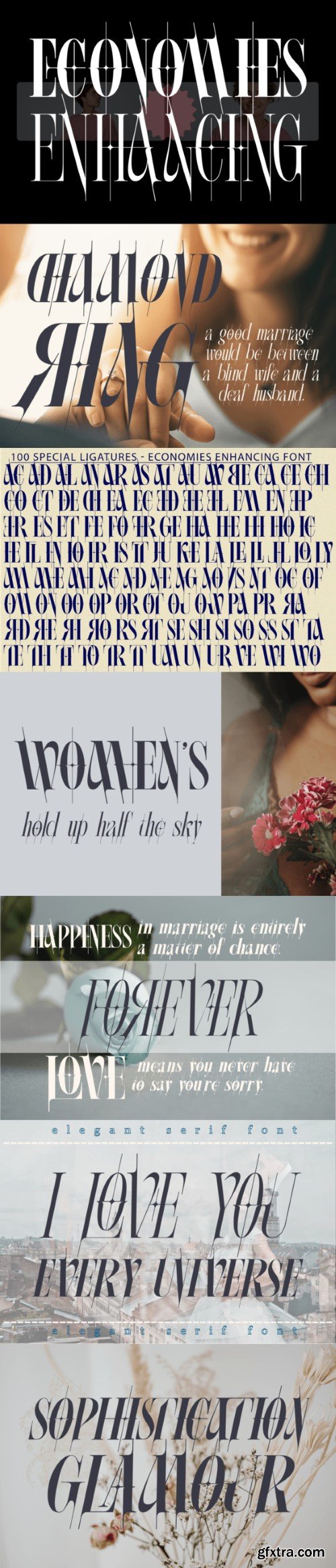
经济体提升字体
ECONOMIES ENHANCING FONT is a new condense font that is elegant and has a luxury look. The ligatures makes this typeface unique and stands out rather than the regular serif font. It’s a beautiful and inspiring set of modern typography glyphs based on a minimal and simplistic approach to elegance. The inspiration came from the fashion magazines. Its thick-thin, serif strokes express the modernity of the fashion industry. This unique font is perfect for creating beautiful logotypes, stunning magazine designs and more. This font can be your solution in completing projects that are equipped with various alternate and ligature collections.